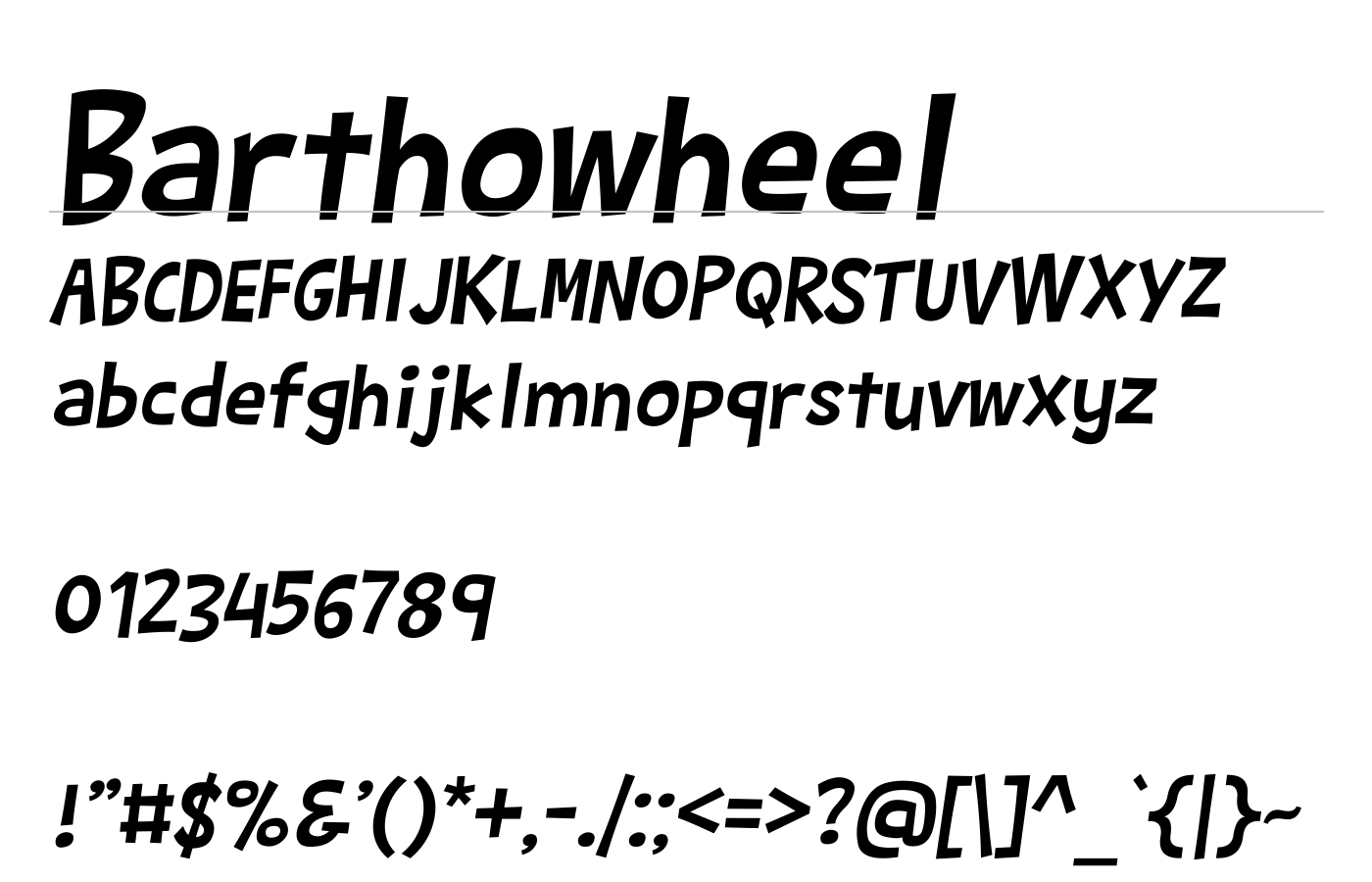
Barthowheel is a playful and dynamic sans serif font with a slight slant and varying stroke widths that give it an energetic, informal feel. Its quirky letter shapes and lively irregularities make it perfect for creative branding, children’s materials, or casual headlines where a friendly, approachable vibe is desired. This font stands out in designs seeking personality and movement without sacrificing clarity.
Barthowheel Font
About Barthowheel Font
| Font family | Barthowheel Font |
| Designer | Jayvee D. Enaguas (Grand Chaos) |